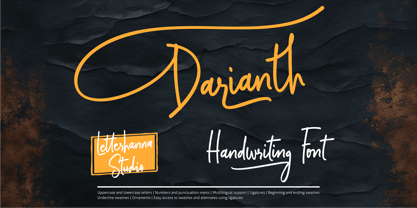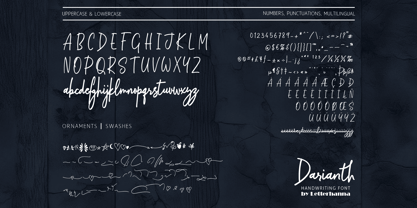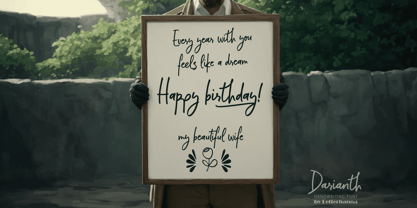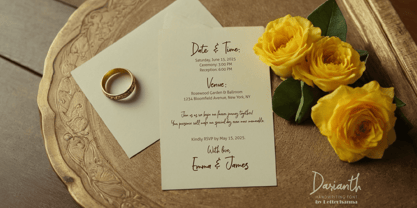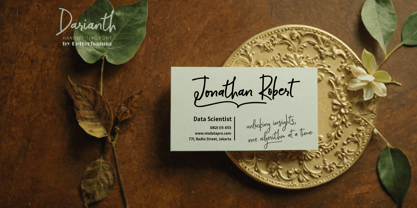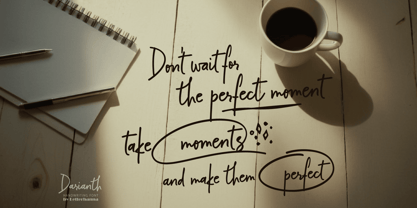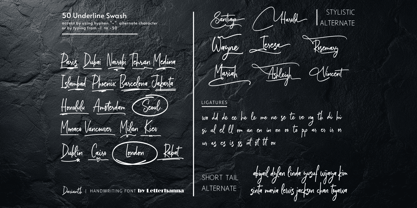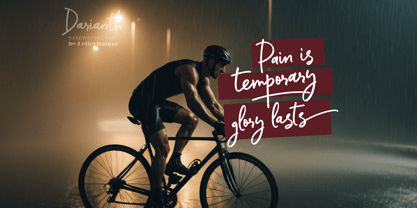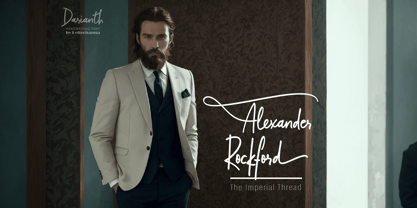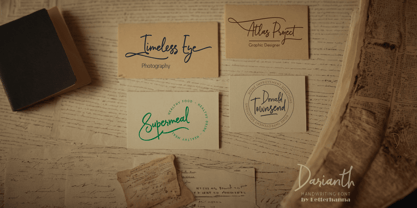
Darianth
by Letterhanna Studio
The Darianth Font Family was designed by Rinaldo Hasibuan and published by Letterhanna Studio. Darianth contains 1 styles.
Introducing Darianth Handwriting Font, a beautifully crafted script font designed to bring elegance and fluidity to your projects. With its natural flow and expressive strokes, this font captures the charm of handwritten artistry while maintaining a refined, modern feel. Every letter is thoughtfully designed to ensure smooth connections, making it perfect for branding, invitations, packaging, and editorial design.
Designers: Rinaldo Hasibuan
Publisher: Letterhanna Studio
Foundry: Letterhanna Studio
Design Owner: Letterhanna Studio
Darianth